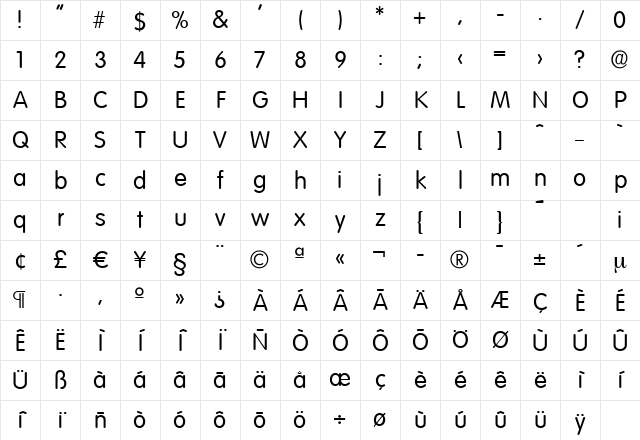
RolandBecker Regular
RolandBecker Family
RolandBecker Regular
RolandBecker Regular Font Preview
RolandBecker Regular Uppercase Preview
RolandBecker Regular Lowercase Preview
RolandBecker Regular Numeric Preview
RolandBecker Regular Character Map
Complete RolandBecker Regular glyph index. Displaying only characters natively supported by RolandBecker Regular font.
RolandBecker Regular Character Map
Design Context for RolandBecker
RolandBecker is a composed and adaptable typeface that performs quietly and consistently across a wide range of design contexts.